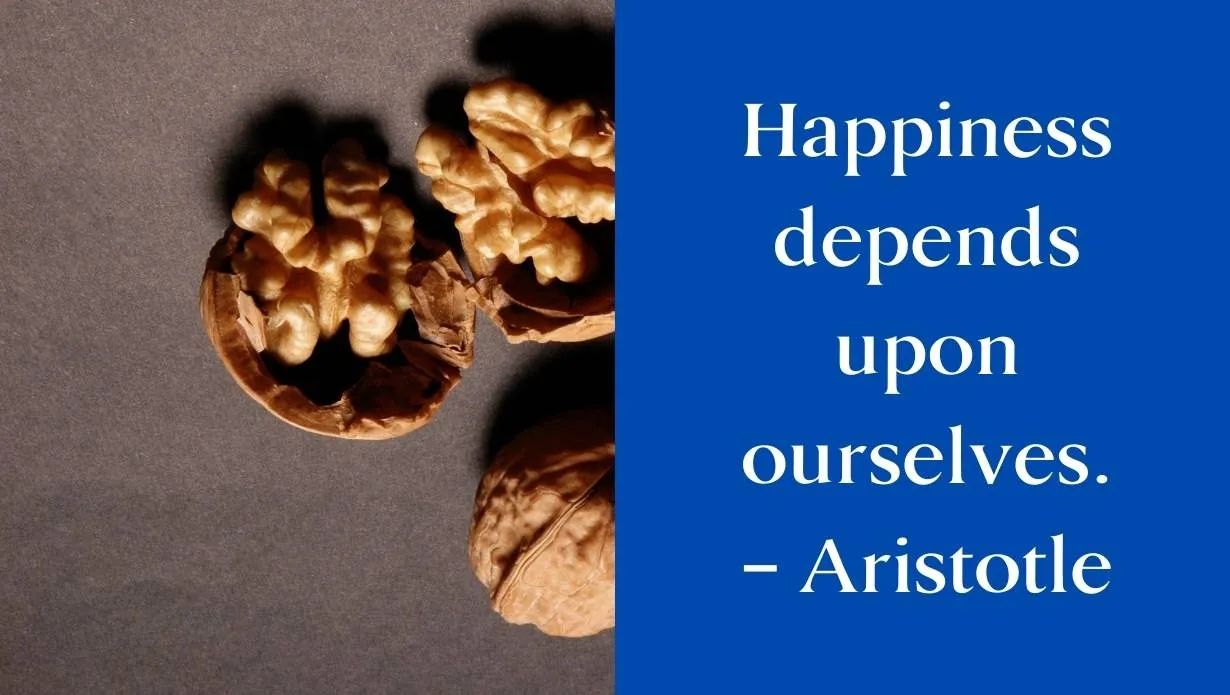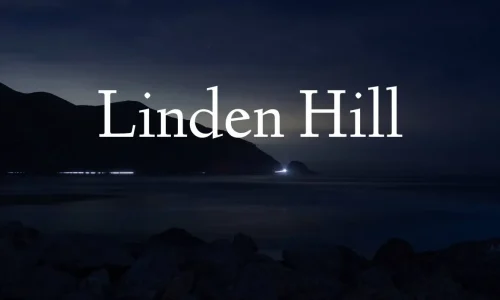
Fire Emblem Font is designed by Famicom. This cute and cozy typeface belongs to the Serif Typeface. The main purpose of this font is for video game logos, titles, and graphic design. This awesome font has been downloaded 64,831 times.
This attractive Font is perfect for projects that require a touch of elegance and quirkiness. This typeface is also great for branding purposes.
Fire Emblem Font Family
It is very famous because of the gaming franchise Fire Emblem. It is perfect for use in CSS and SVG. Priori Serif Font is alternative to this typeface.
| Name | Fire Emblem Font |
| Designer | Famicom |
| Style | Seirf |